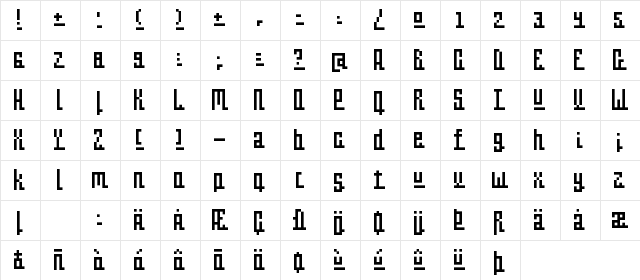
Linemap Regular
Design Context for Linemap Typeface
Linemap is a composed and adaptable typeface that performs quietly and consistently across a wide range of design contexts.